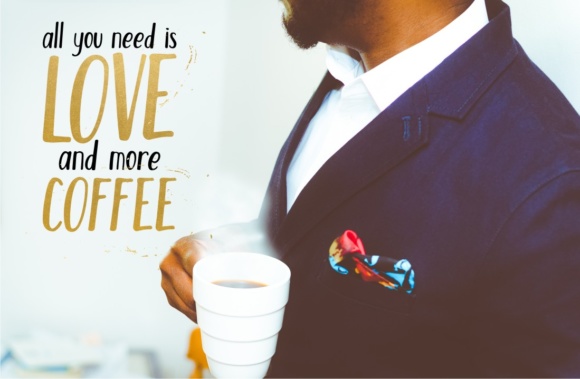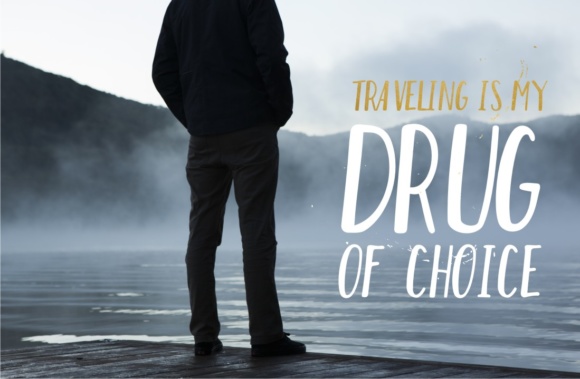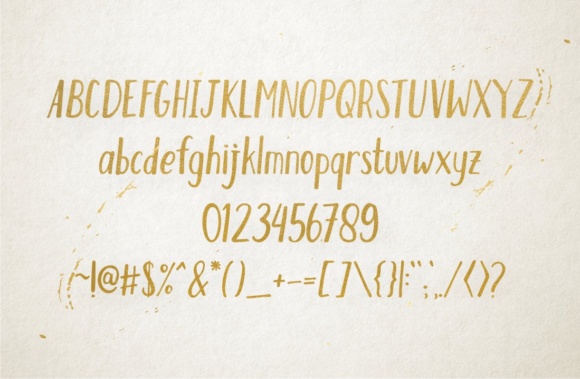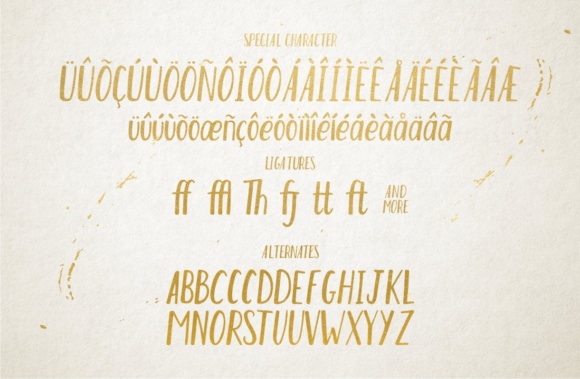
Humble Font
About Humble Font
Humble is a clean and neat typeface for both everyday use and special occasions. It can be used for greeting cards, wedding invitations, letters, stickers and so much more!